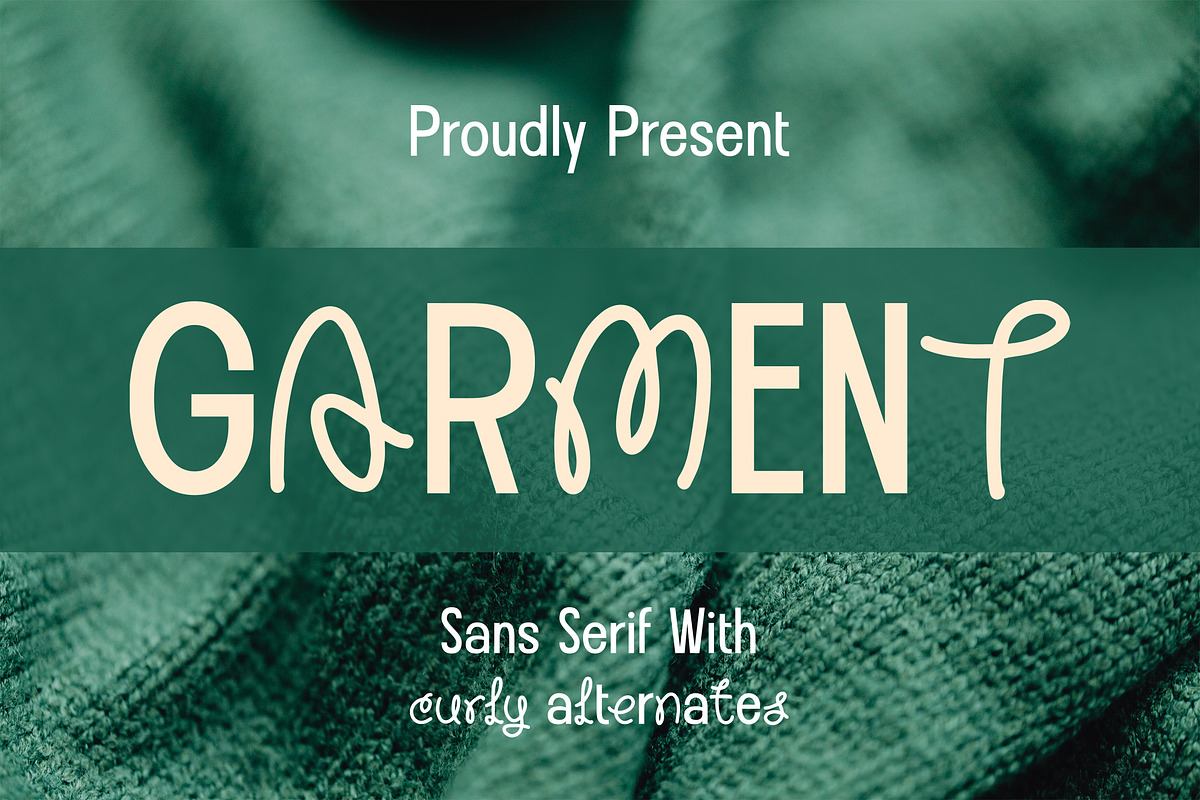
Garment - Sans Serif Font Free Download
The Garment - Sans Serif Font Free Download is a clean, modern typeface designed to bring clarity and sophistication to your designs. With its simple, geometric shapes and balanced letterforms, this font is perfect for branding, websites, print materials, and digital content. Whether you're working on logos, headlines, or social media graphics, Garment adds a contemporary and polished look to any creative project.
Garment - Sans Serif Font Free Download is ideal for designers who prefer minimalistic and professional fonts with a modern twist. Whether you’re designing for a corporate brand or a creative project, this font will make your designs stand out with its clean and stylish appearance. Download this versatile sans serif font today and elevate your design work!